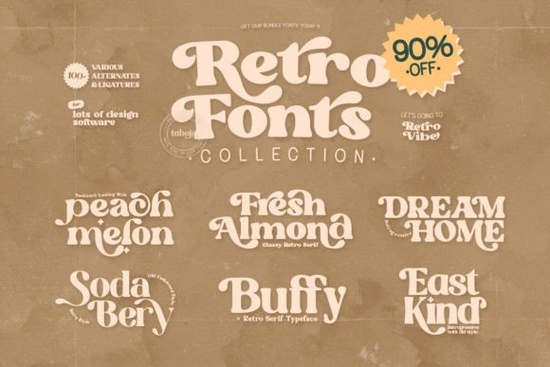
If you're looking for a set of retro-inspired typefaces that work well across print and digital projects without juggling dozens of separate downloads the Retro Fonts Collection Font is a practical, time-saving option. It bundles six distinct fonts in one package, each with its own personality but unified by warm, nostalgic styling: Fresh Almond, Peach Melon, Dream Home, Buffy, Sodabery, and East Kind. All are PUA encoded, so accessing alternate glyphs, swashes, and ligatures is straightforward in design apps like Adobe Illustrator or Affinity Designer no need to dig through character maps.
What kinds of projects does this collection suit best?
This isn’t just about “vintage vibes.” These fonts respond well to real-world use cases: wedding stationery (think elegant yet approachable invites), small-batch product labels (like artisanal jam or candle packaging), social media graphics for local cafes or boutiques, and even blog headers where readability meets charm. Because the collection includes both serif and sans-serif-leaning styles some with subtle brush texture, others with clean mid-century structure you can mix and match without clashing. For example, Dream Home pairs nicely with East Kind for a layered heading-and-subhead combo on a poster or flyer.
How does it compare to other retro-style fonts on Creative Fabrica?
Unlike single-font listings, this bundle gives you flexibility without subscription fatigue. You’ll find similar warmth in Bethany Elingston, which leans more formal and script-based, or ET Emilia Grace, with its delicate serif details great for bridal branding. If you prefer bolder, hand-drawn energy, Wildflower Apothecary offers organic flow, while Magic Flash brings playful sparkle for event posters or kids’ activity sheets. But for consistent retro tone across multiple weights and moods? The Retro Fonts Collection Font stands out as a focused, cohesive starting point.
Where can I see examples of each font in action?
You can preview individual styles directly on Creative Fabrica. Fresh Almond Font works well for minimalist café menus; Peach Melon Font adds soft charm to baby shower invites; Dream Home Font feels at home on real estate signage or boutique shop tags; Buffy Font brings friendly, rounded energy to stickers or t-shirt designs; Sodabery Font has subtle 50s diner flair; and East Kind Font balances modern clarity with gentle vintage rhythm.
Who’s this collection really for?
It’s ideal if you’re a small business owner designing your own marketing materials, a POD seller building themed product lines (like “Mid-Century Modern Home Decor”), a crafter making printable planners or greeting cards, or a hobbyist updating their Instagram grid with cohesive typography. You don’t need advanced design training just a basic understanding of how to load fonts and adjust tracking/kerning. And because all six fonts share a visual family feel, you can build brand consistency faster than sourcing from different designers.
- Test each font at different sizes some retro styles lose legibility below 14pt in body text
- Try pairing one display font (like Buffy) with a simple sans-serif for contrast